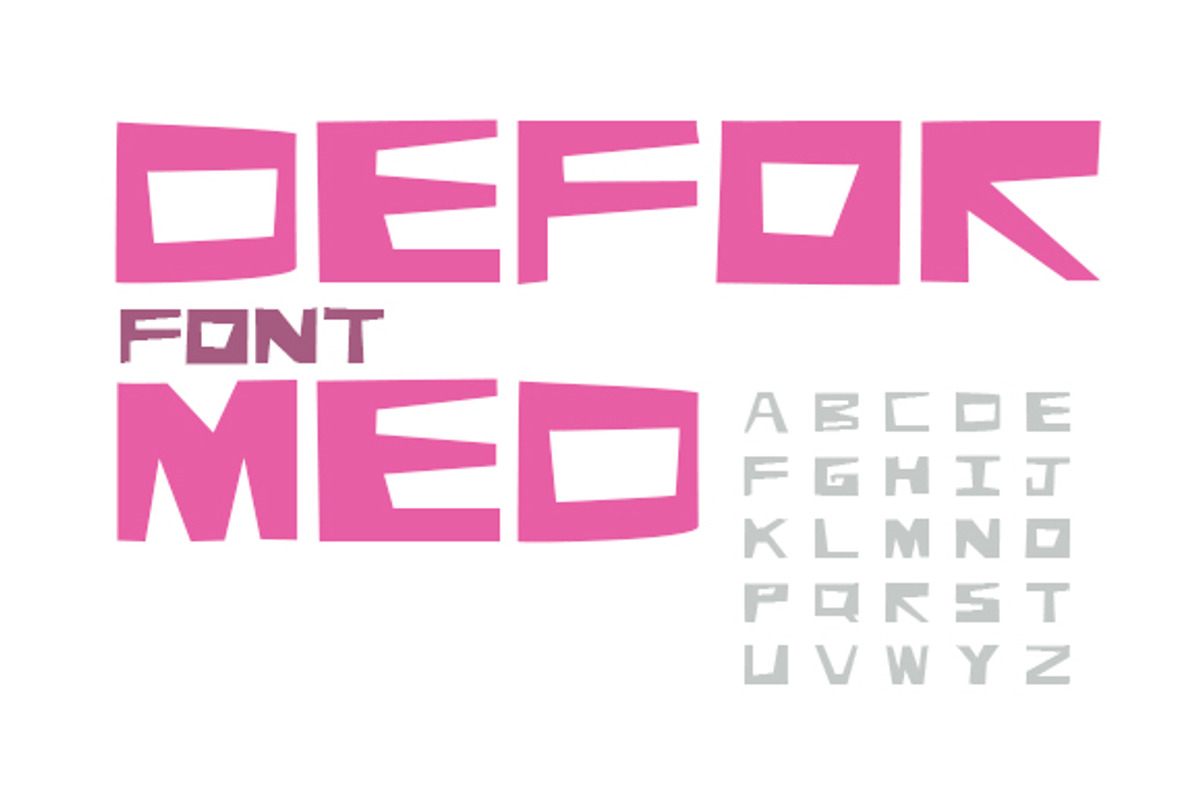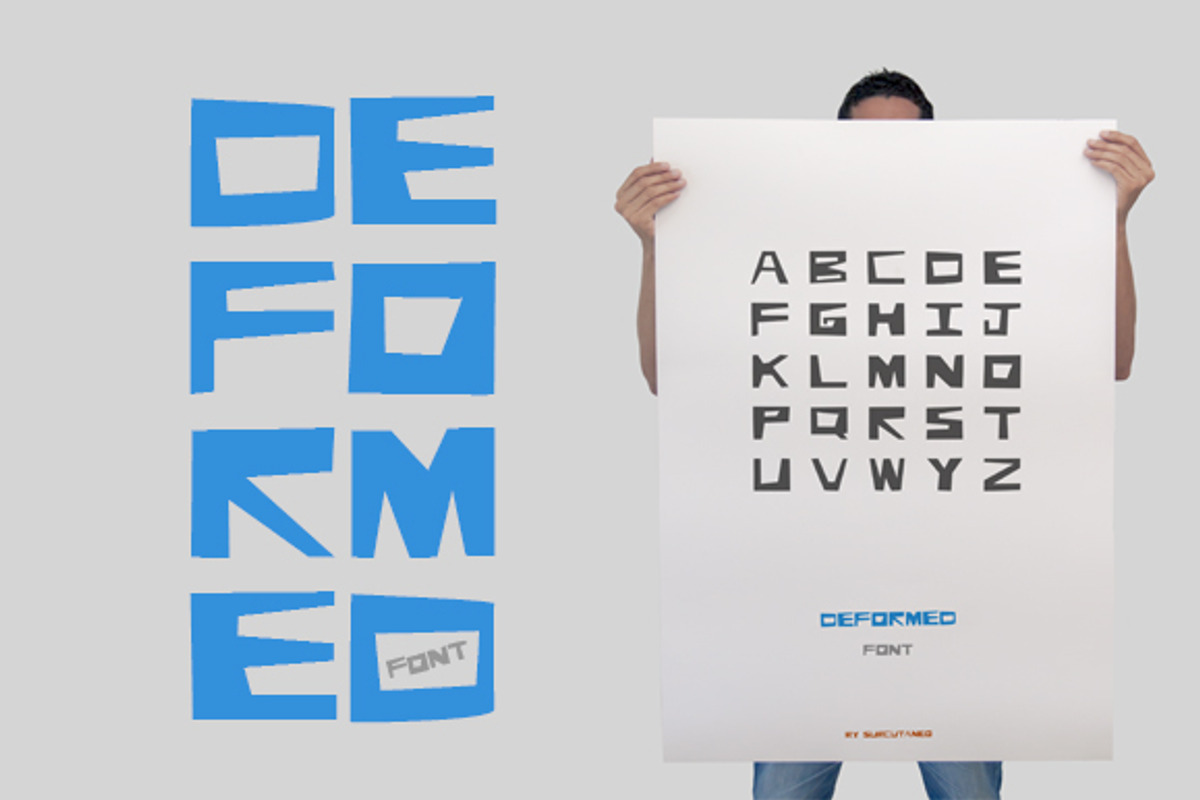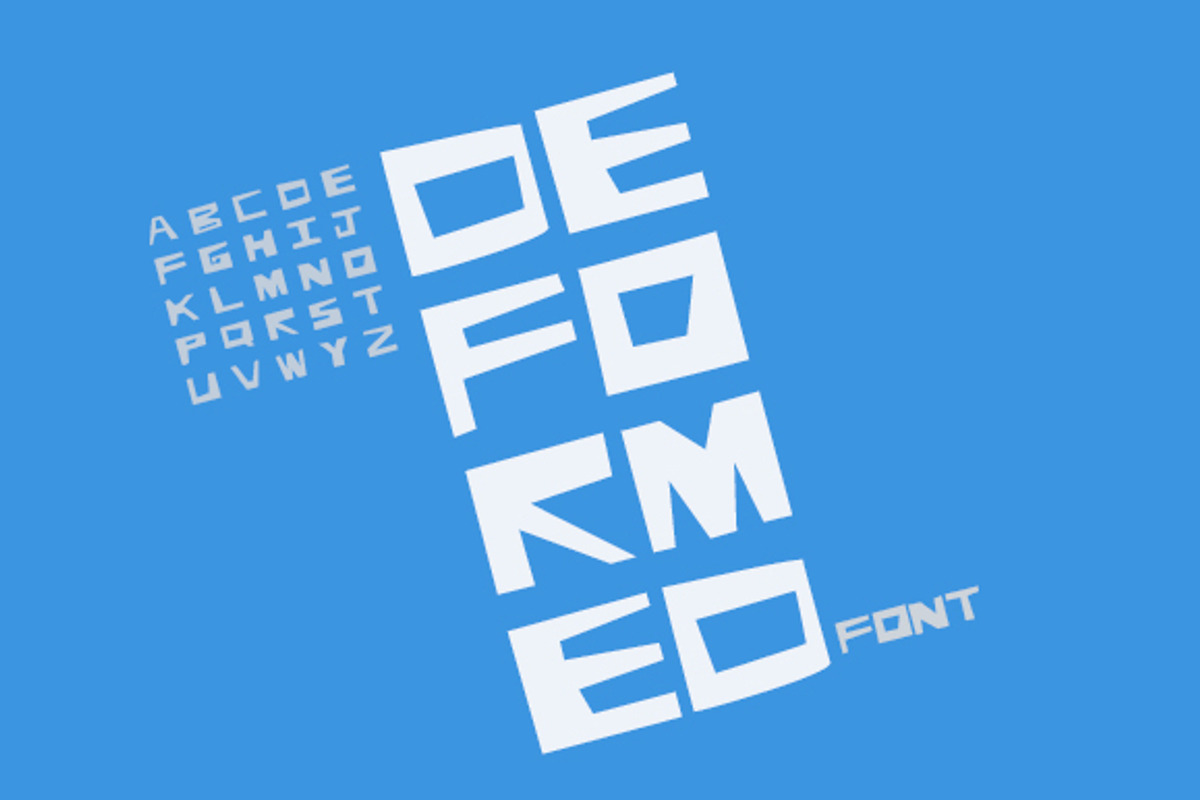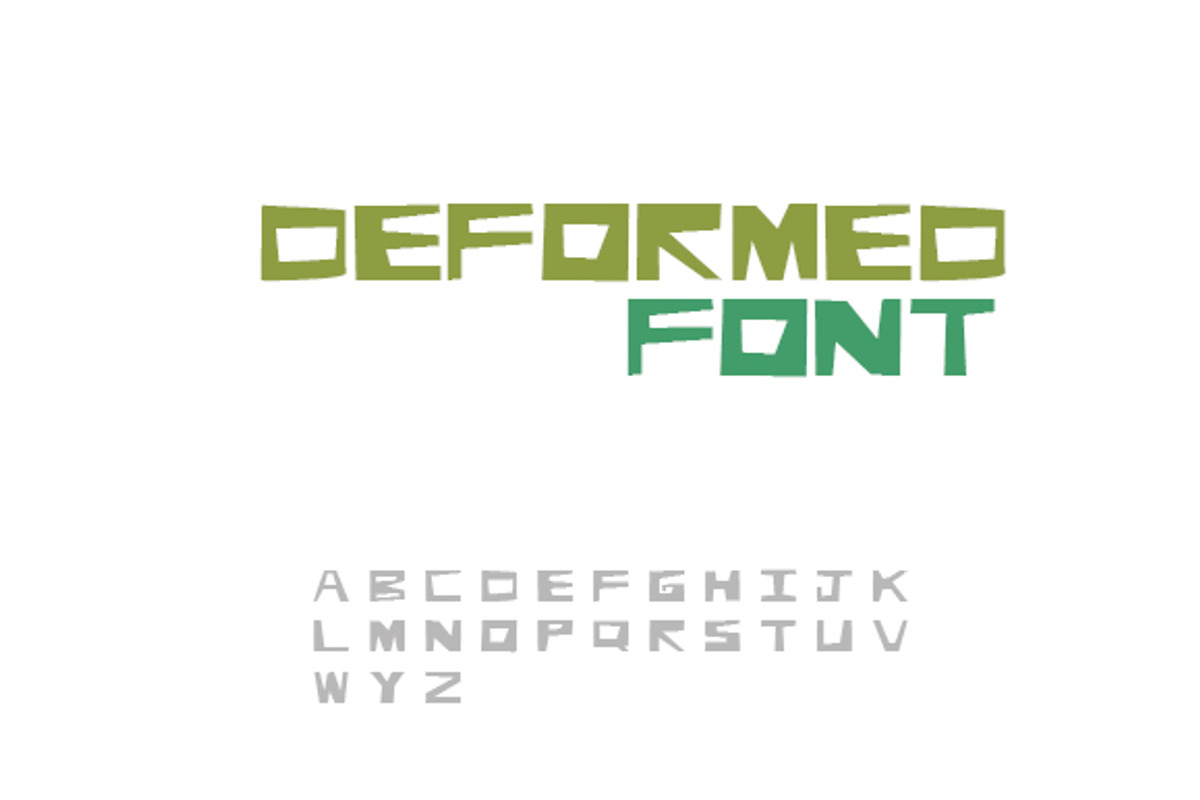
Deformed Abstract Font-4Compositions
Deformed Abstract Font-4Compositions by SUBCUTANEO STORE is a font selected for branding, posters, packaging, typography.
- - Uppercase Only Font is not spaced so for designs you must adjust the tracking or separate it.
Why Deformed Abstract Font-4Compositions is worth a look
Deformed Abstract Font-4Compositions by SUBCUTANEO STORE fits naturally into Branding, posters, packaging, typography.